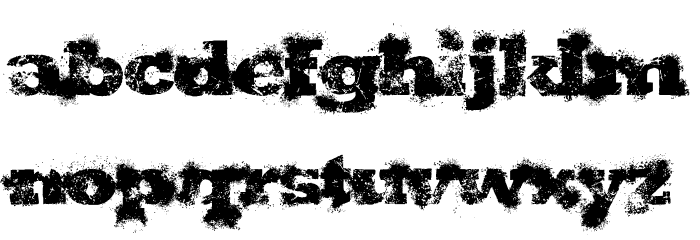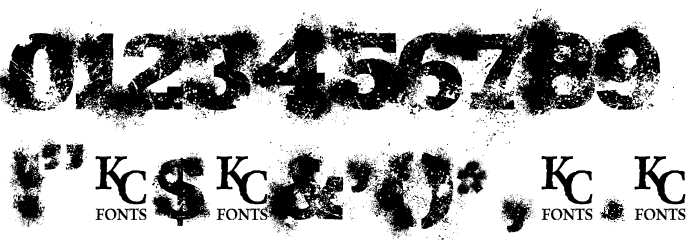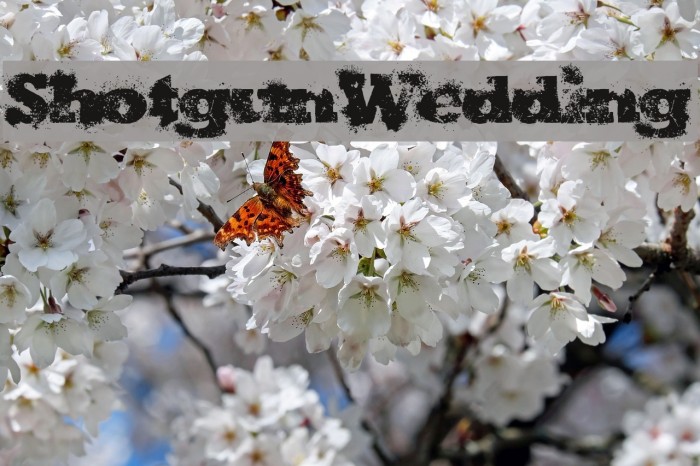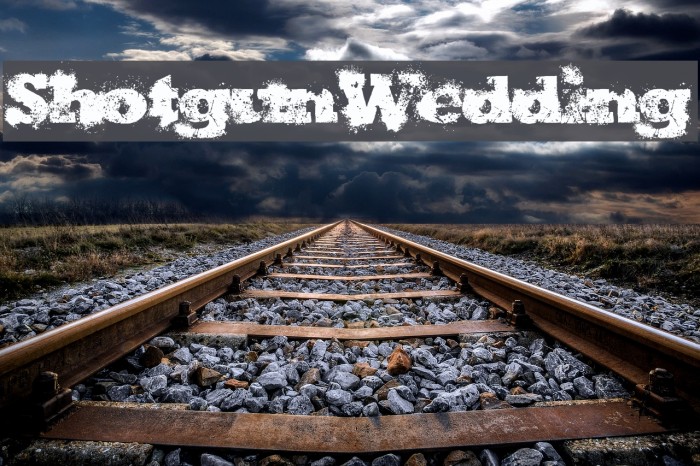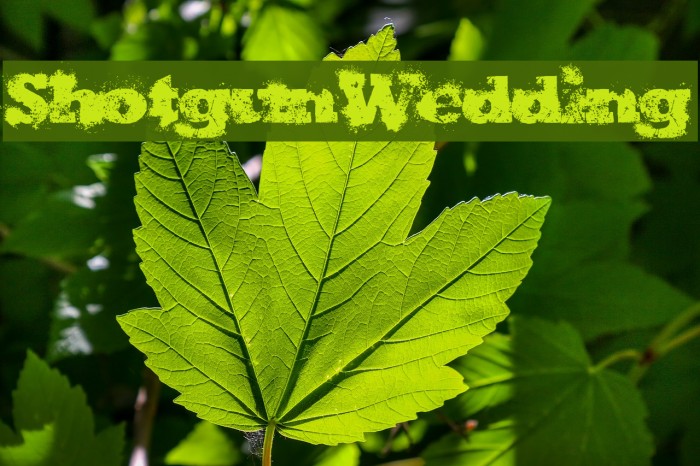
ShotgunWedding Font
This font features a bold, distressed style with a grunge effect that gives it a rugged and edgy appearance. The characters are heavily textured, resembling a spray-painted or splattered ink look, which adds a sense of chaos and energy. The uppercase and lowercase letters maintain a consistent style, with the uppercase being slightly more pronounced. Numbers and special characters follow the same aesthetic, ensuring uniformity across all glyphs. The font's unique style makes it stand out, ideal for projects that require a strong visual impact.
A bold, distressed font with a grunge, spray-painted effect.
- Proposed Projects: Ideal for music album covers, urban-themed posters, rebellious branding, and edgy graphic designs.
- Overall Style: Grunge, Edgy, Urban
- Use Case: Headlines, Posters, Branding